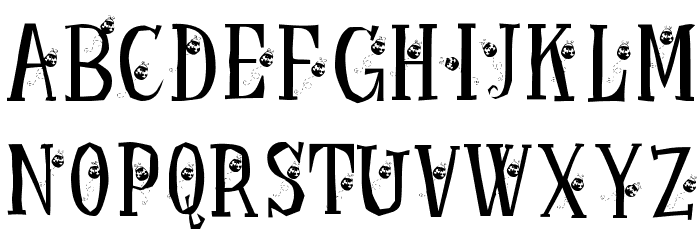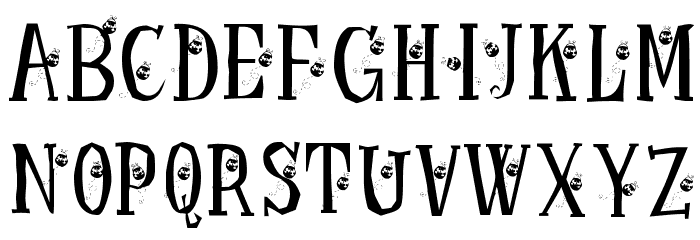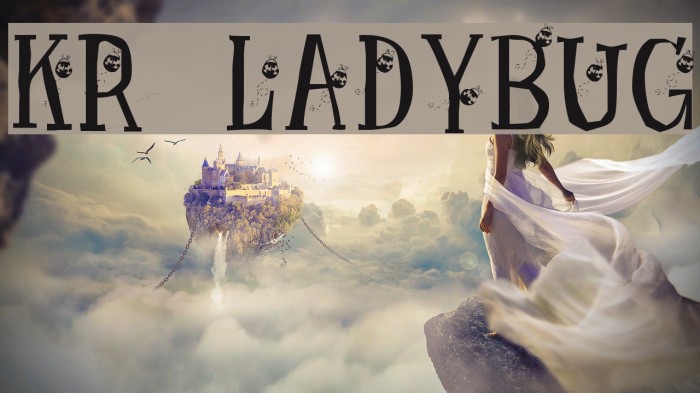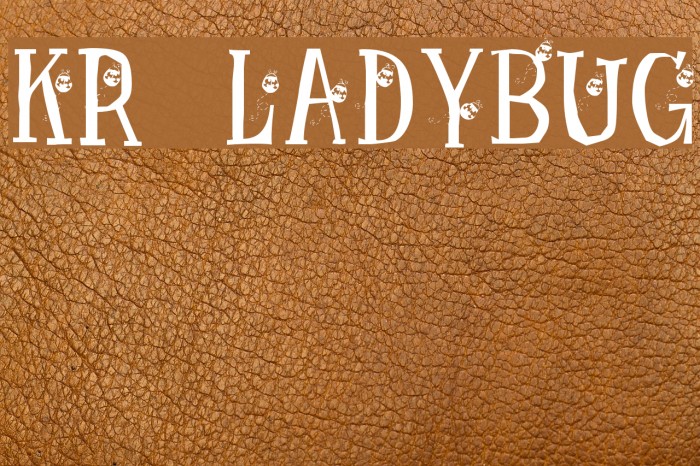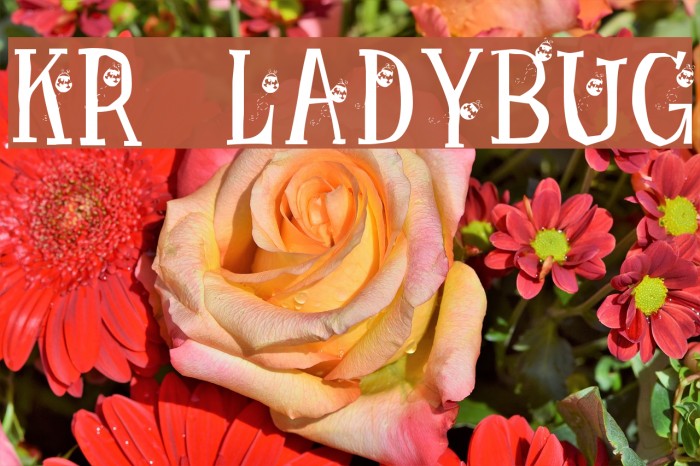
KR Ladybug Font
This playful and whimsical font features a unique design with ladybug motifs integrated into the characters. The letters are bold and slightly condensed, with decorative elements that add a touch of charm and creativity. The font maintains a consistent stroke width, offering a medium contrast that enhances readability while keeping the playful theme intact. The inclusion of ladybug illustrations within the letters makes it ideal for projects that require a fun and engaging visual appeal. Its decorative nature is perfect for children's books, playful branding, or any design that seeks to incorporate a sense of joy and imagination.
A whimsical font with ladybug motifs, perfect for playful and creative designs.
- Proposed Projects: Ideal for children's books, playful branding, greeting cards, and creative invitations.